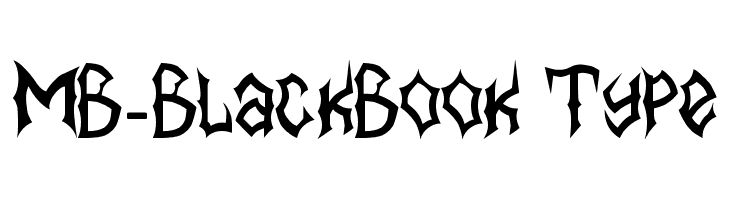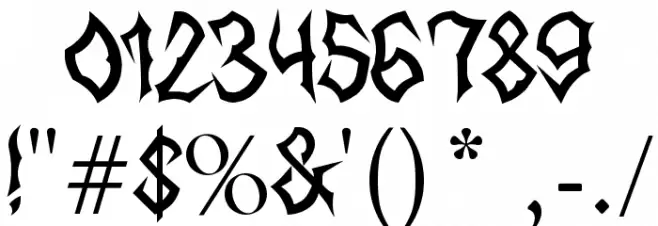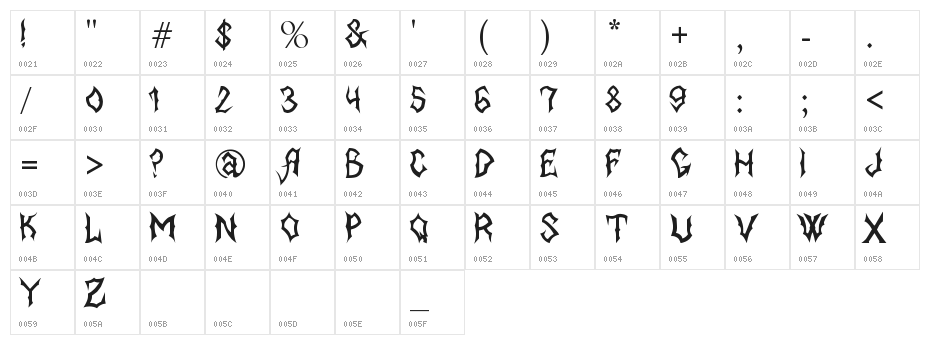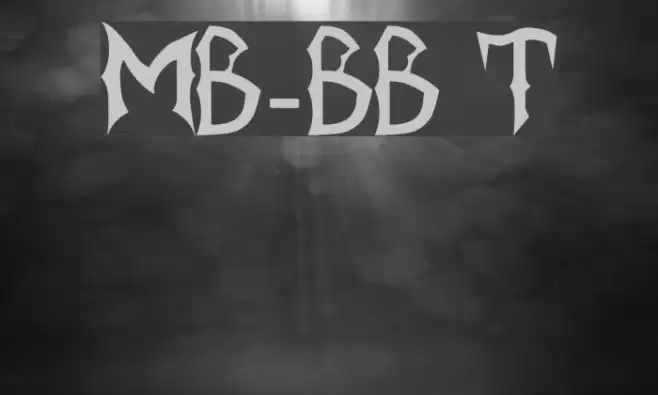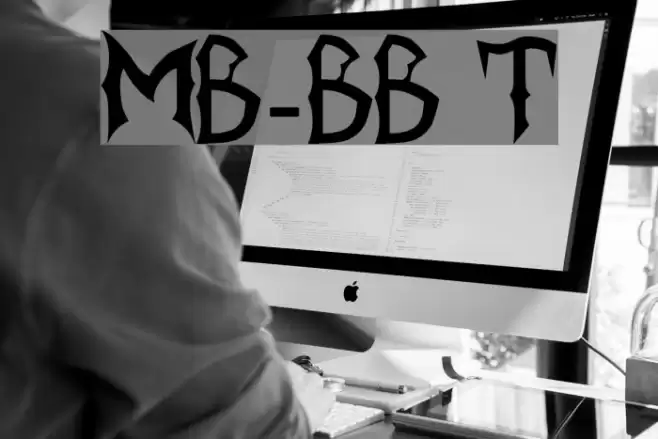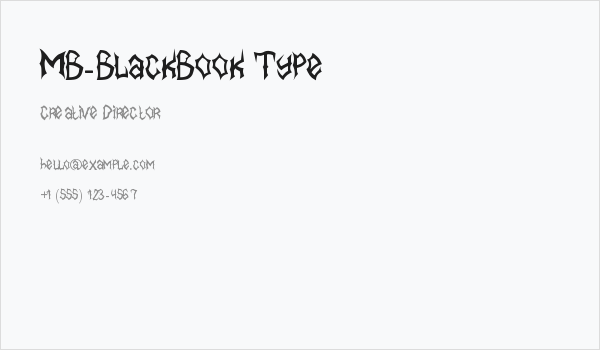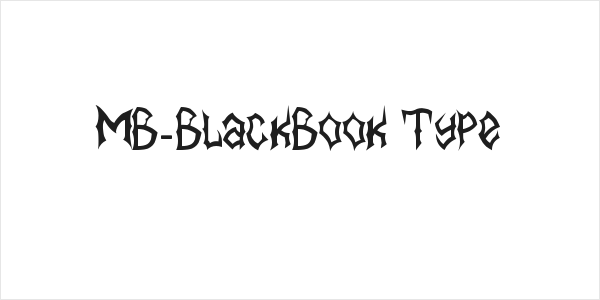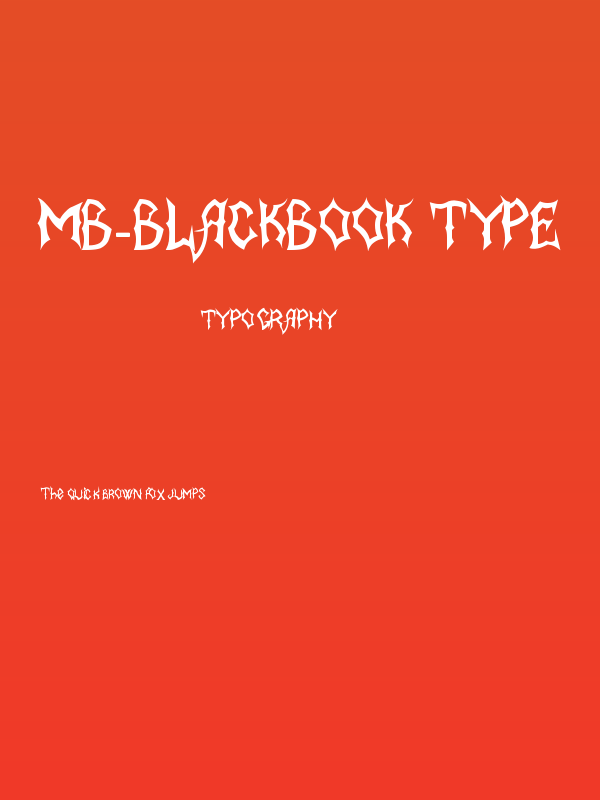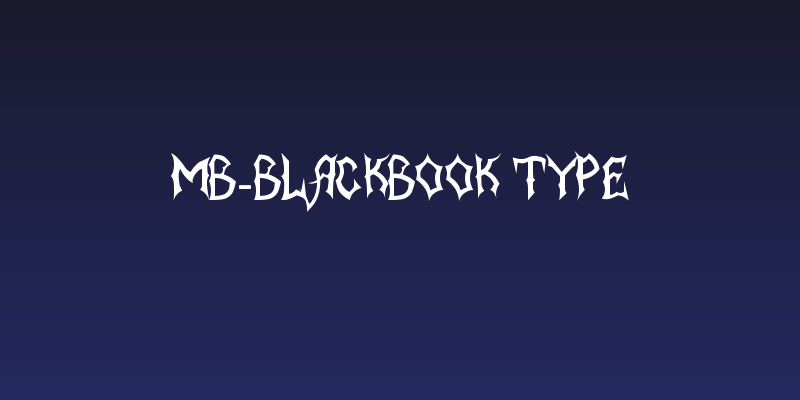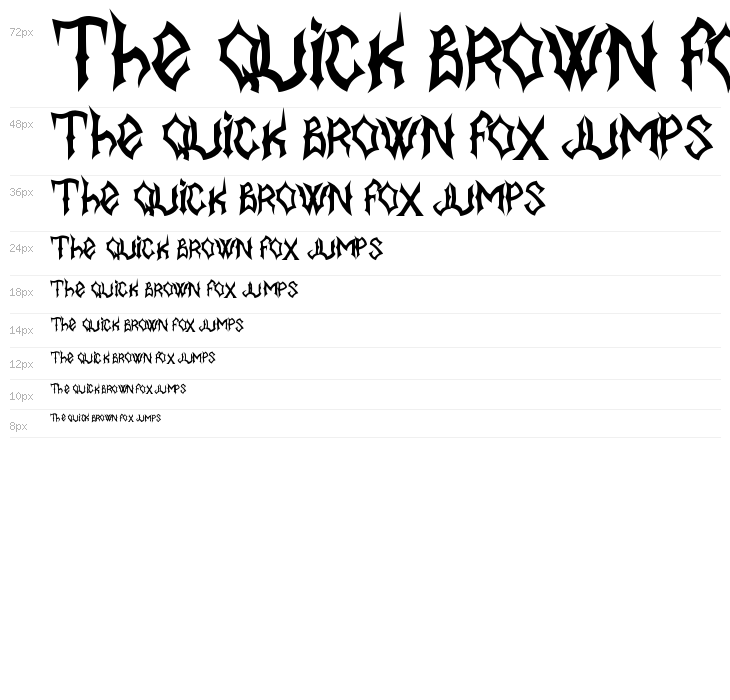
MB-BlackBook Type Font
MB-BlackBook Type Description
This font features a bold and edgy design with sharp, angular lines and a graffiti-inspired aesthetic. The characters are highly stylized, with dramatic points and curves that create a sense of movement and energy. The uppercase and lowercase letters maintain a consistent style, while the numbers and special characters complement the overall look with similar boldness and flair. This font is ideal for projects that require a strong, rebellious, or urban vibe, making it perfect for street art, music album covers, or edgy branding.
| Overall Style | Modern, Urban, Edgy |
| Proposed Projects | Street art, music album covers, edgy branding, posters, and urban-themed designs. |